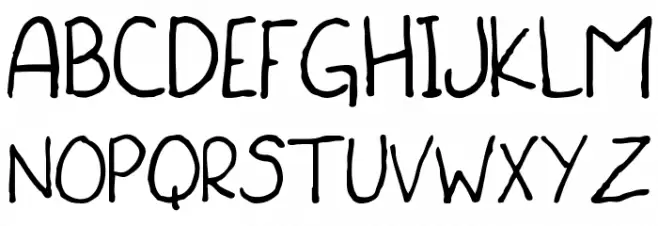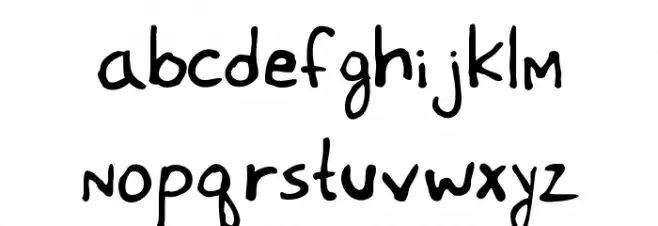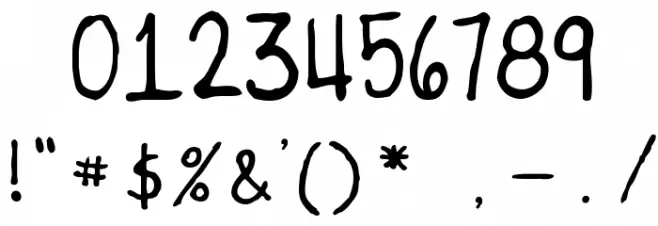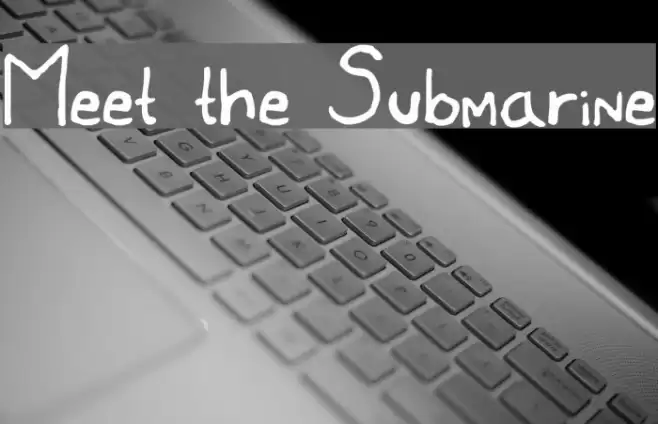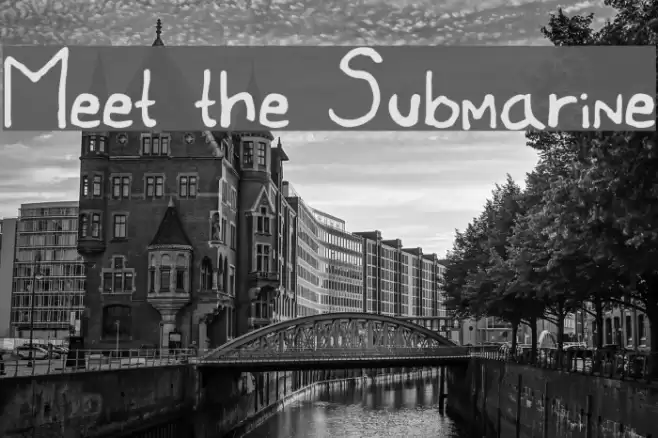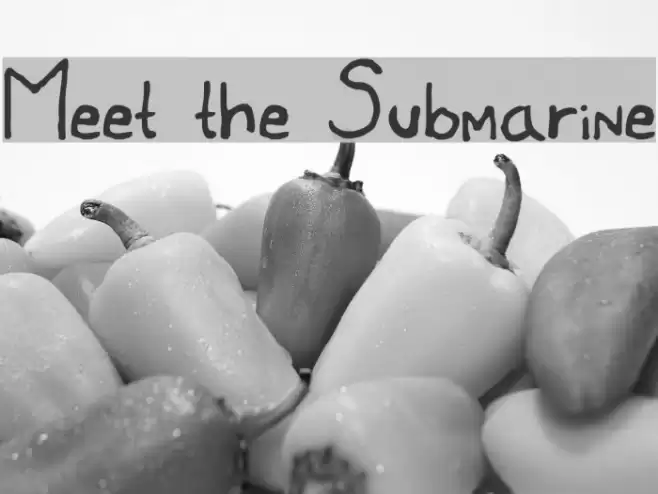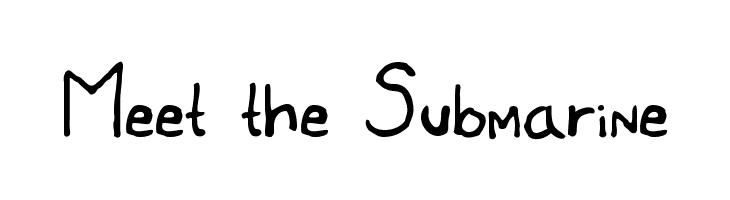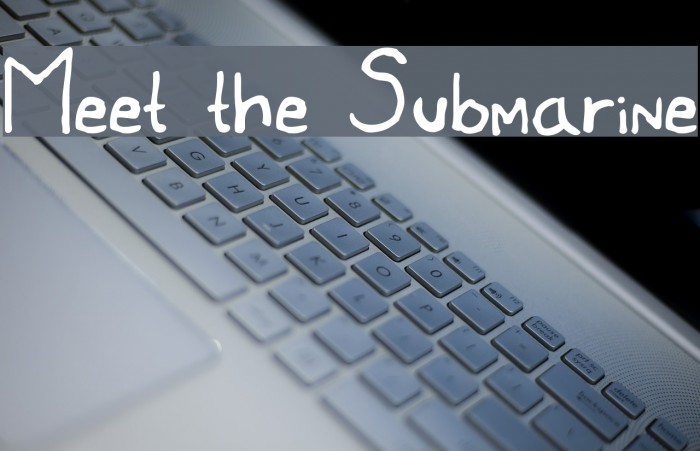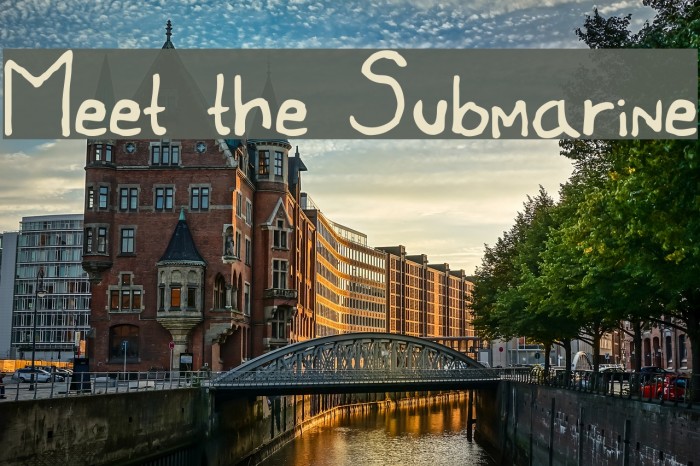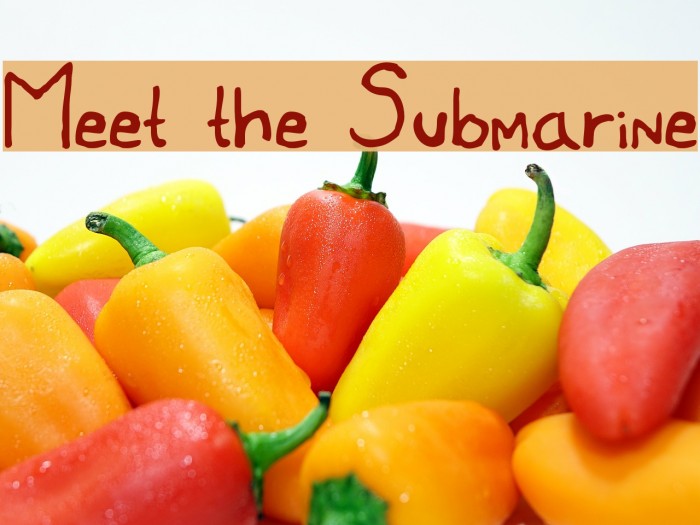
Meet the Submarine
This font features a playful and informal handwritten style, characterized by its uneven strokes and casual appearance. The letters have a slightly irregular baseline, adding to the whimsical and friendly feel. The uppercase and lowercase letters maintain a consistent style, with rounded edges and a relaxed form. Numbers and special characters follow the same informal aesthetic, making the font versatile for creative projects. The overall look is approachable and fun, suitable for designs that aim to convey a sense of warmth and personality.
A playful handwritten font with a casual and friendly style.
- Proposed Projects: Ideal for children's books, greeting cards, casual invitations, and playful branding.
- Overall Style: Casual
- Use Case: Headlines, Logos, Informal Text